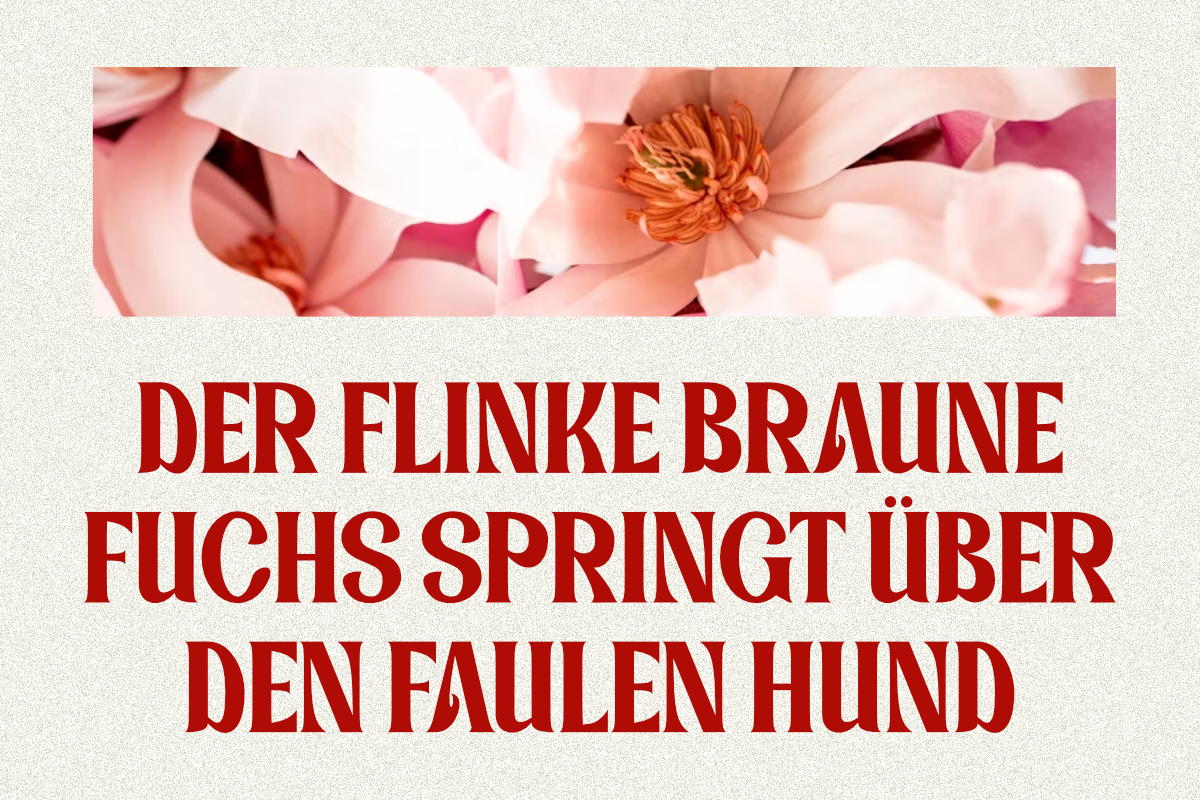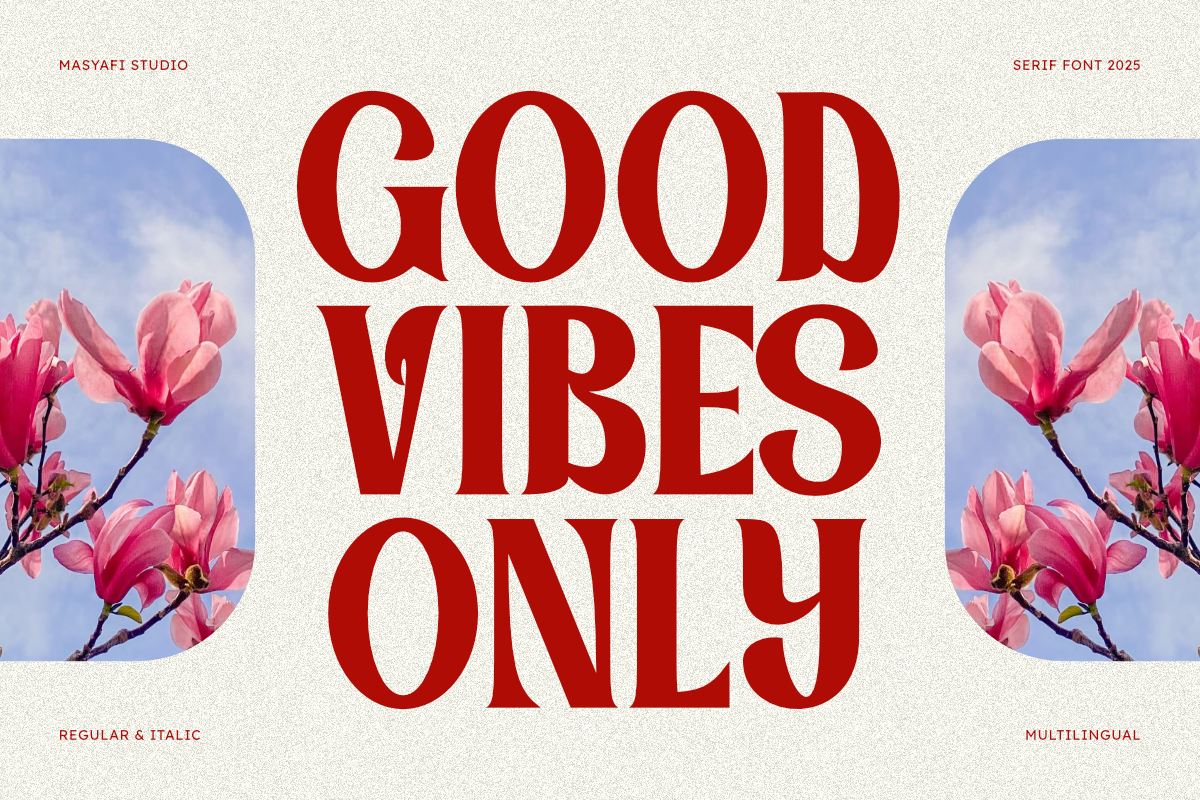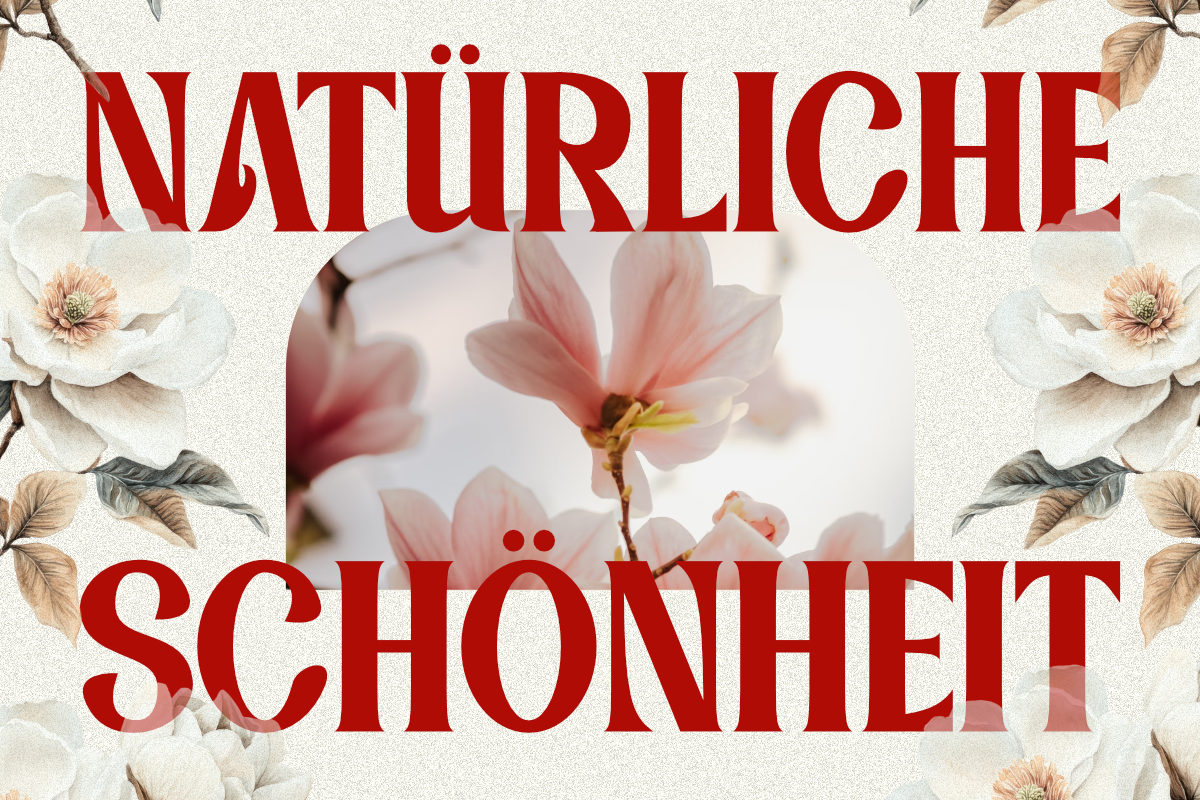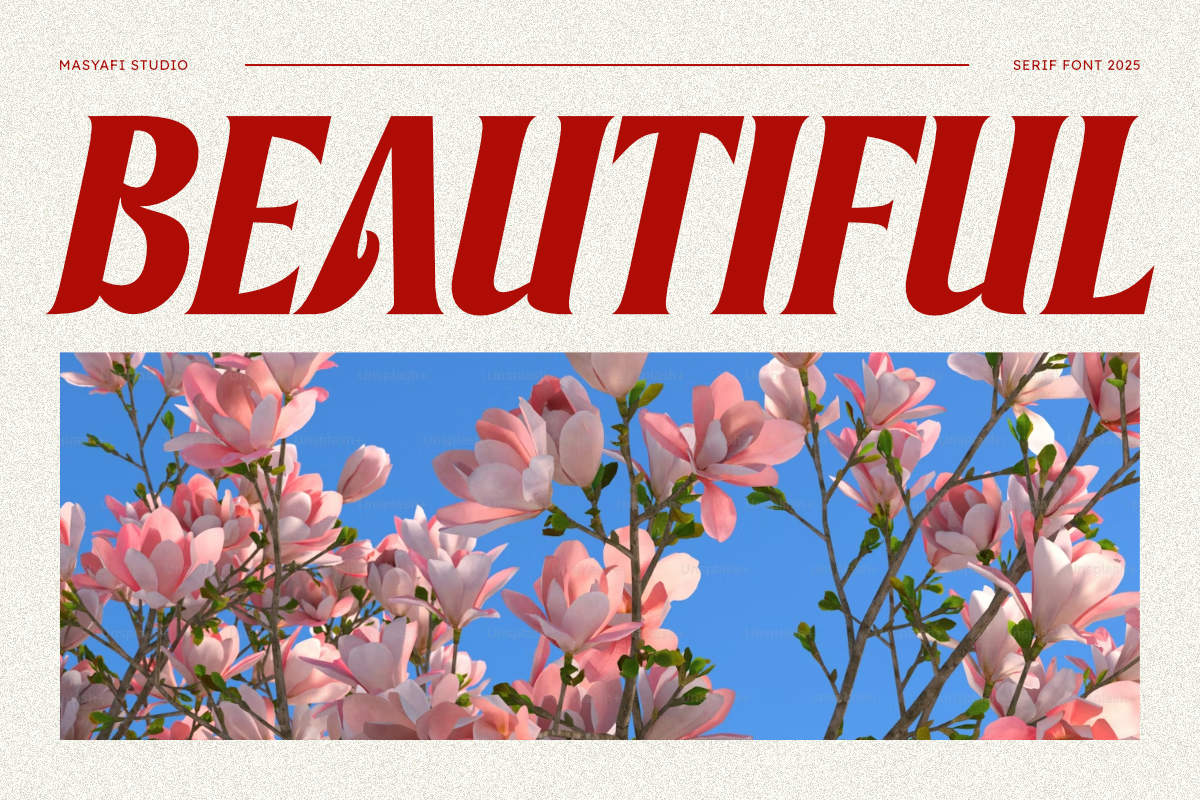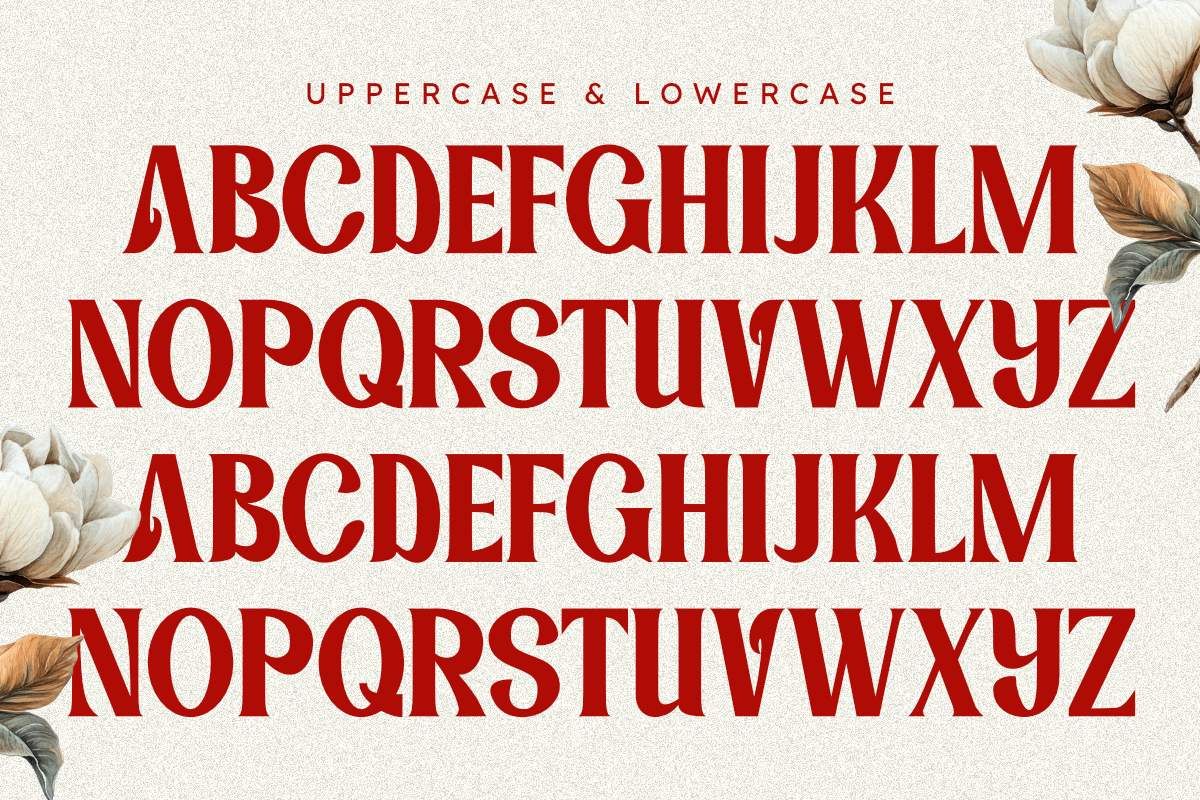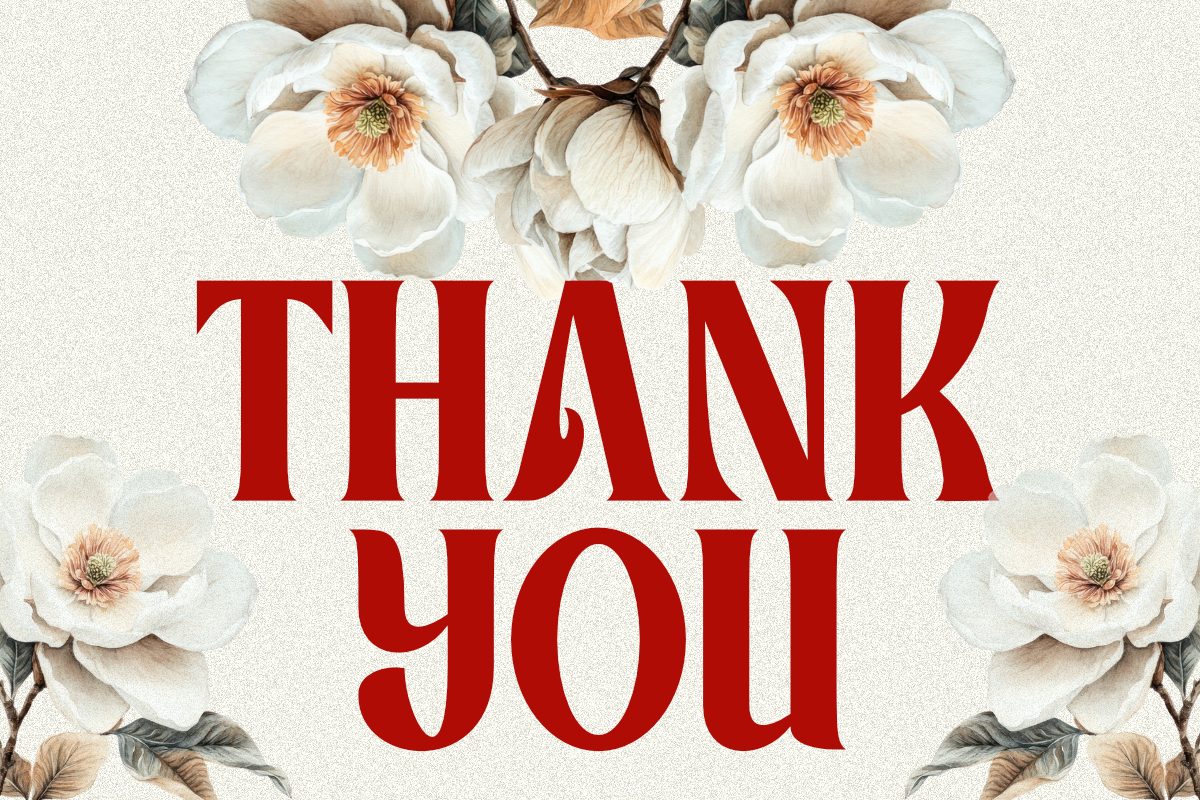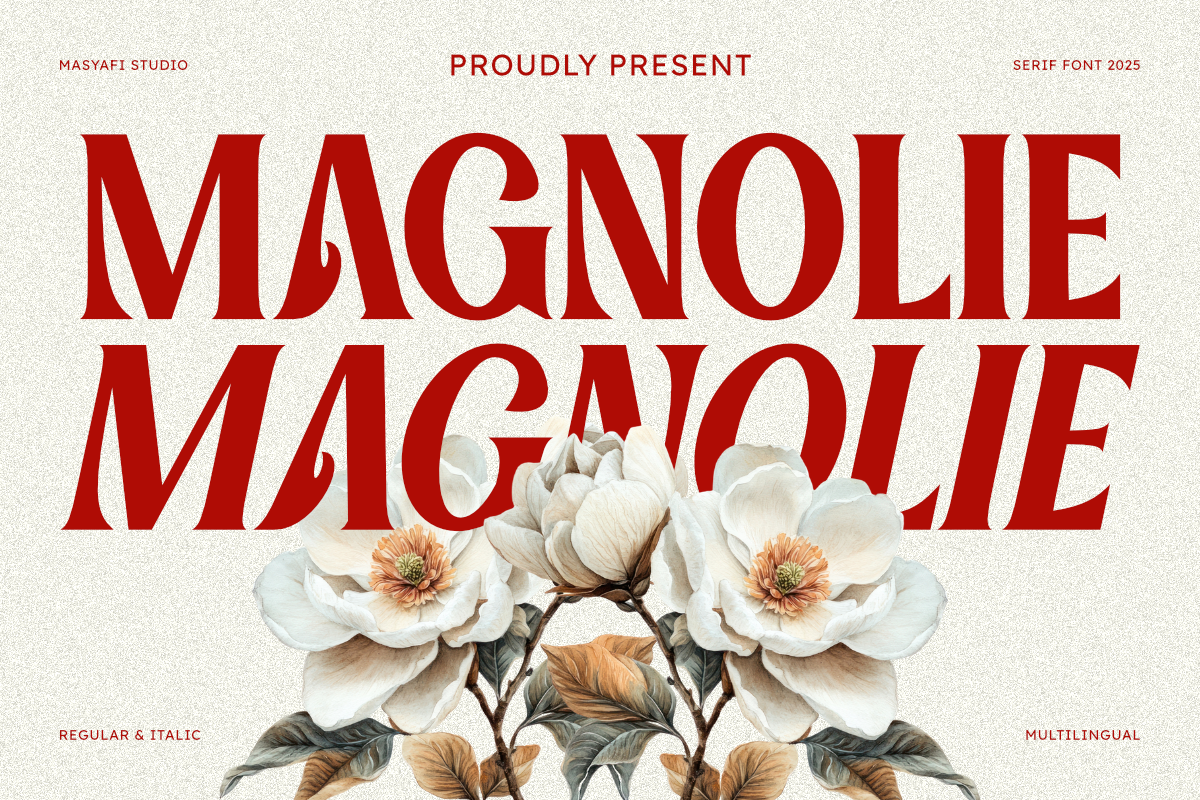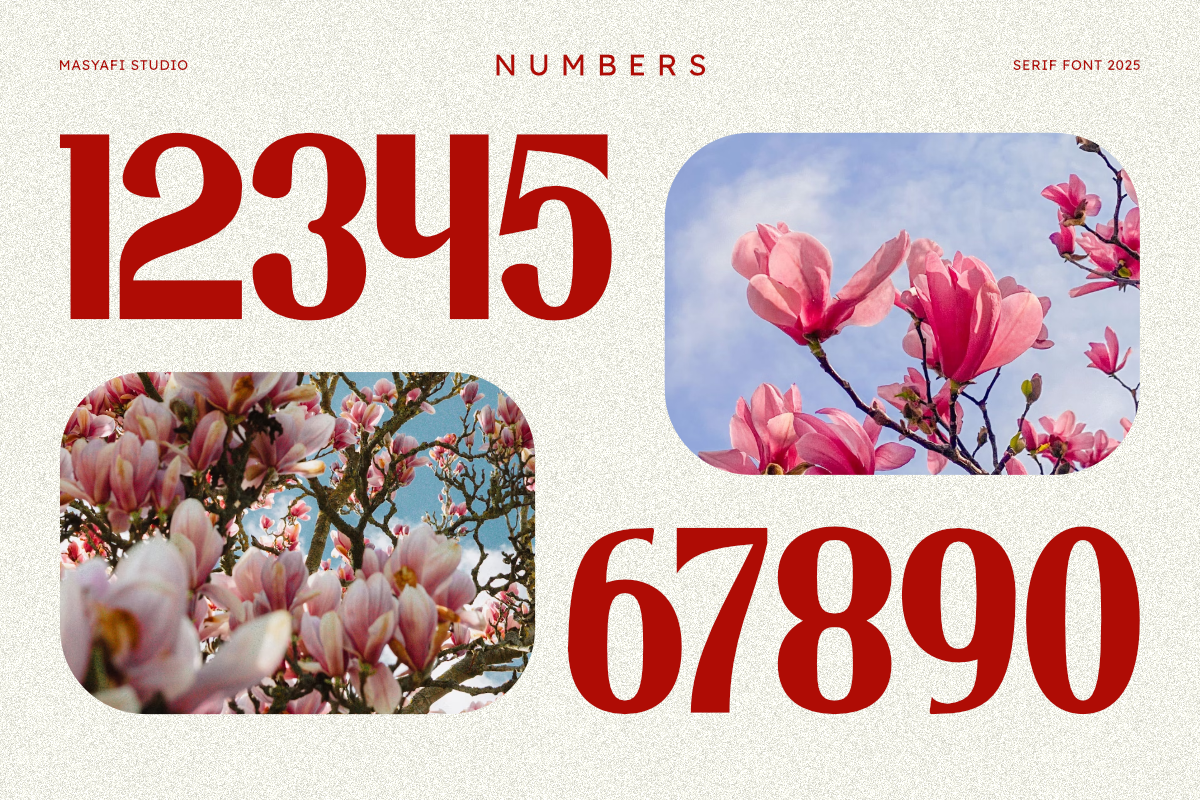
Magnolie - Vintage Serif Font
Magnolie is a sophisticated and elegant serif font inspired by classic typography with a modern twist. Its sharp, high-contrast letterforms and subtle decorative details give it a refined yet bold aesthetic, making it perfect for luxury branding, editorial design, wedding invitations, packaging, and high-end fashion projects. With both Regular and Italic styles, Magnolie offers versatility and timeless beauty, ideal for creating striking headlines and stylish typography.